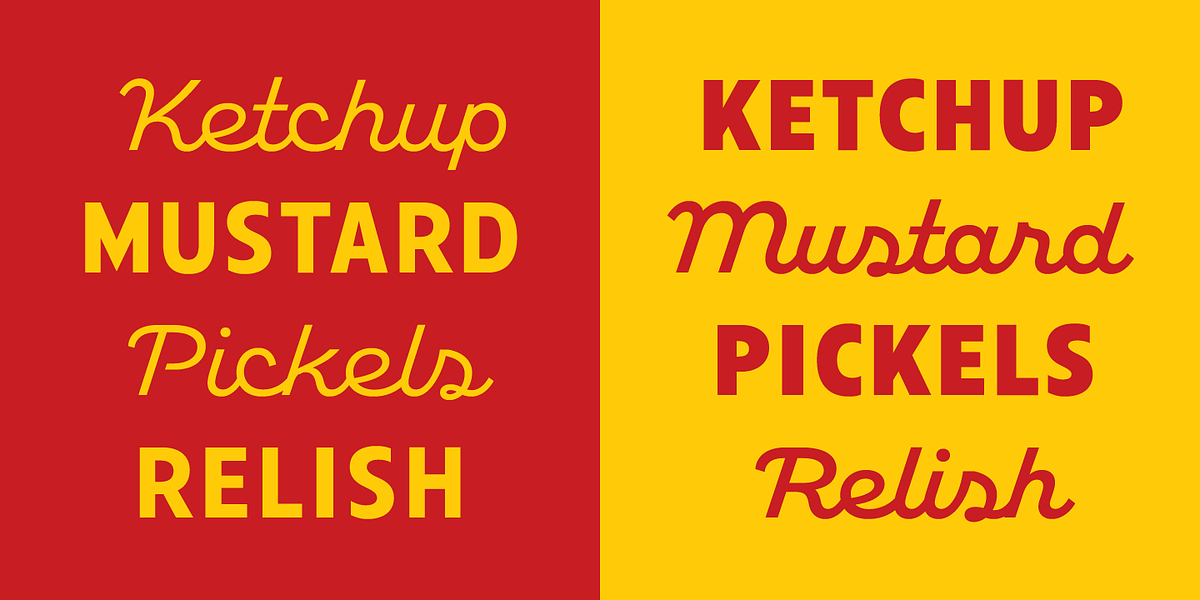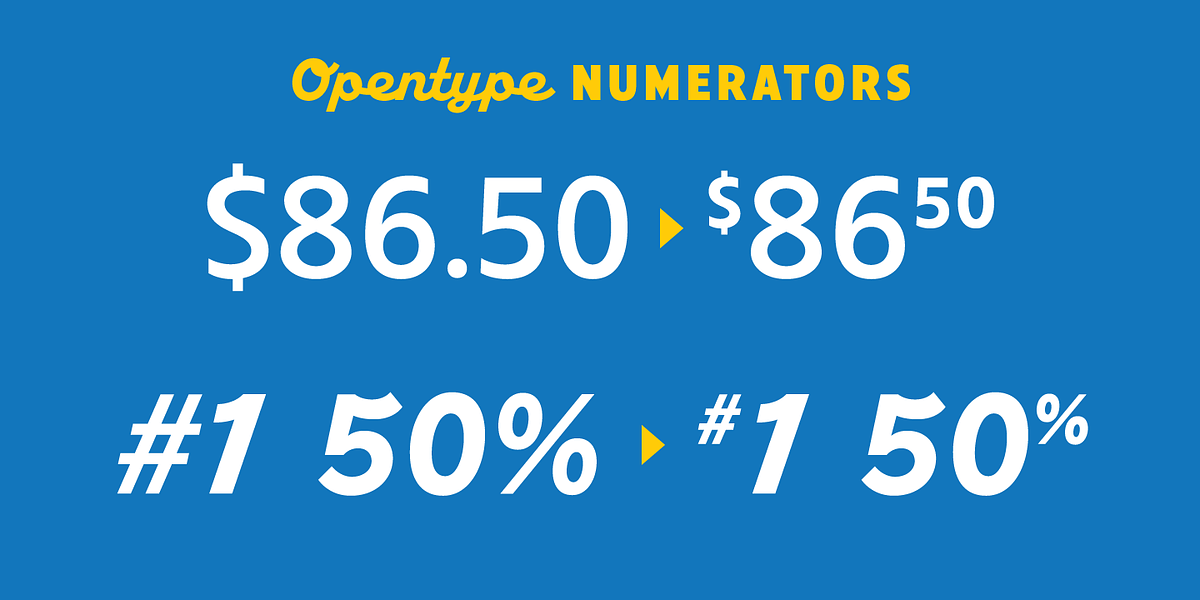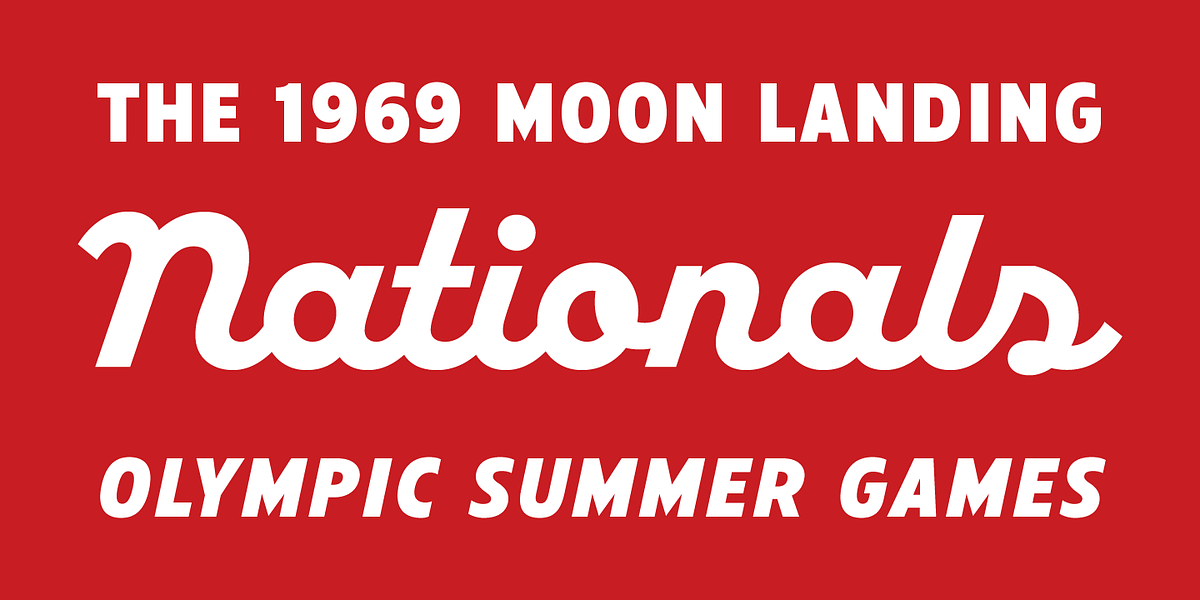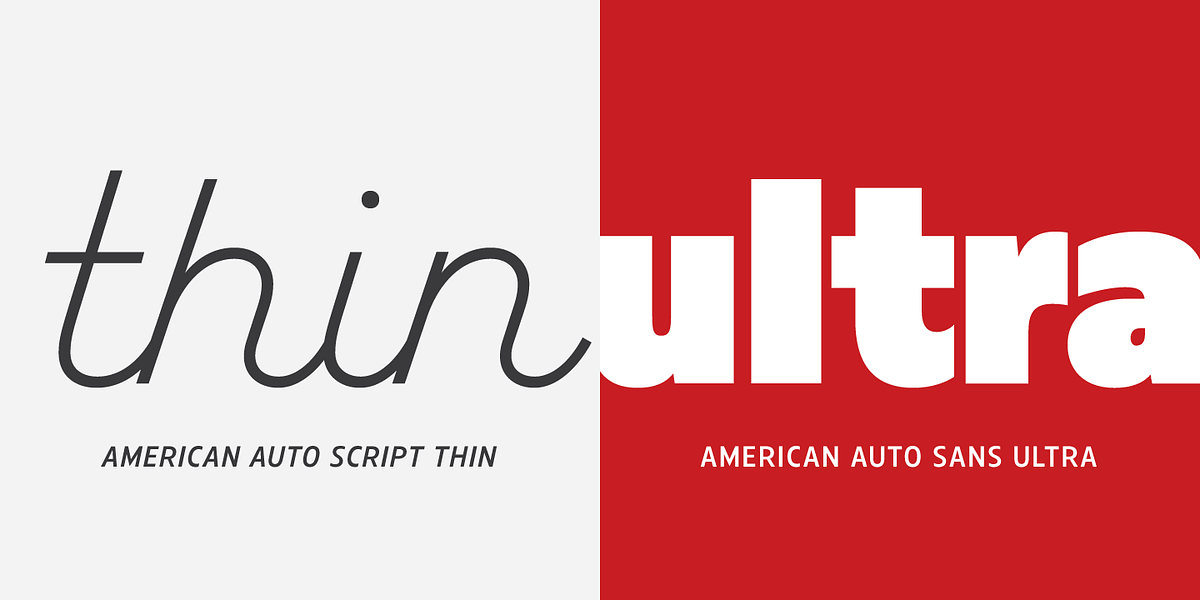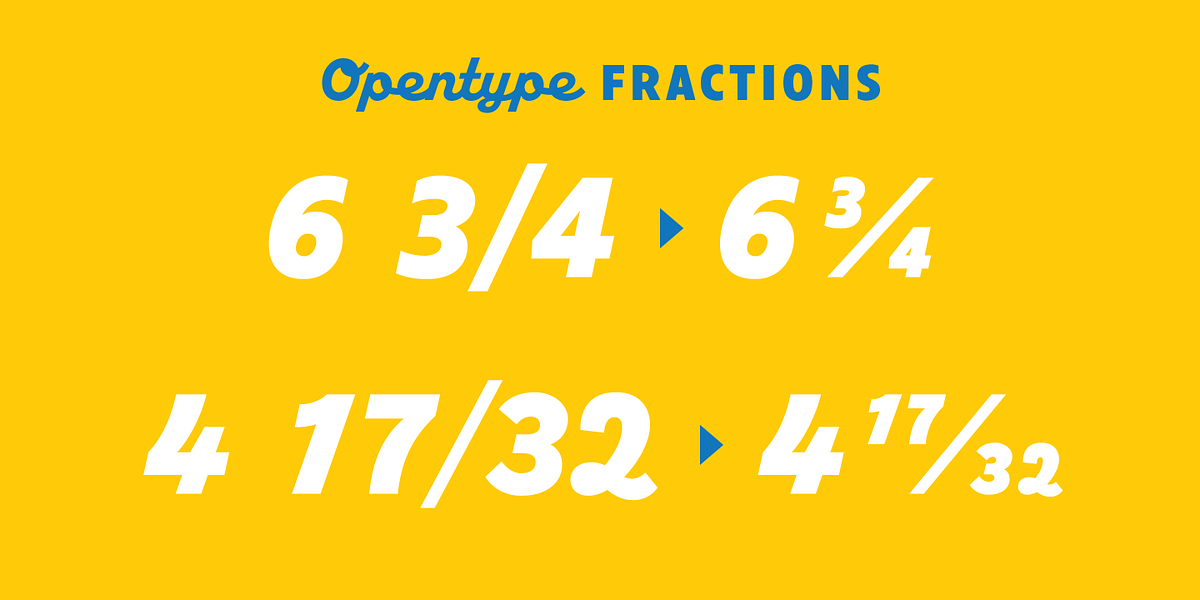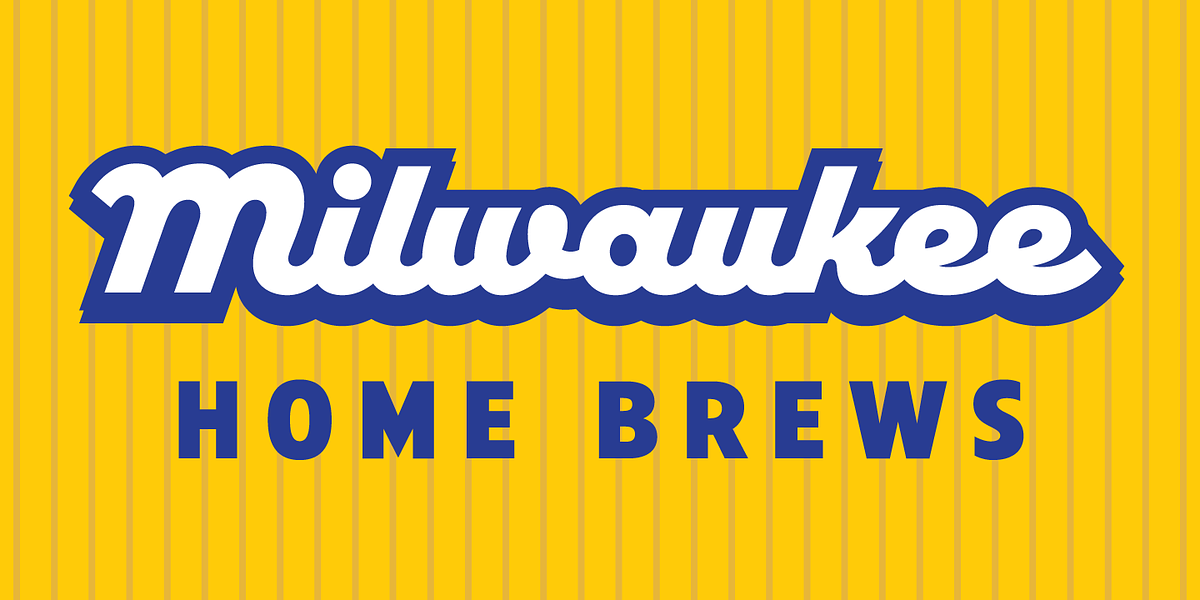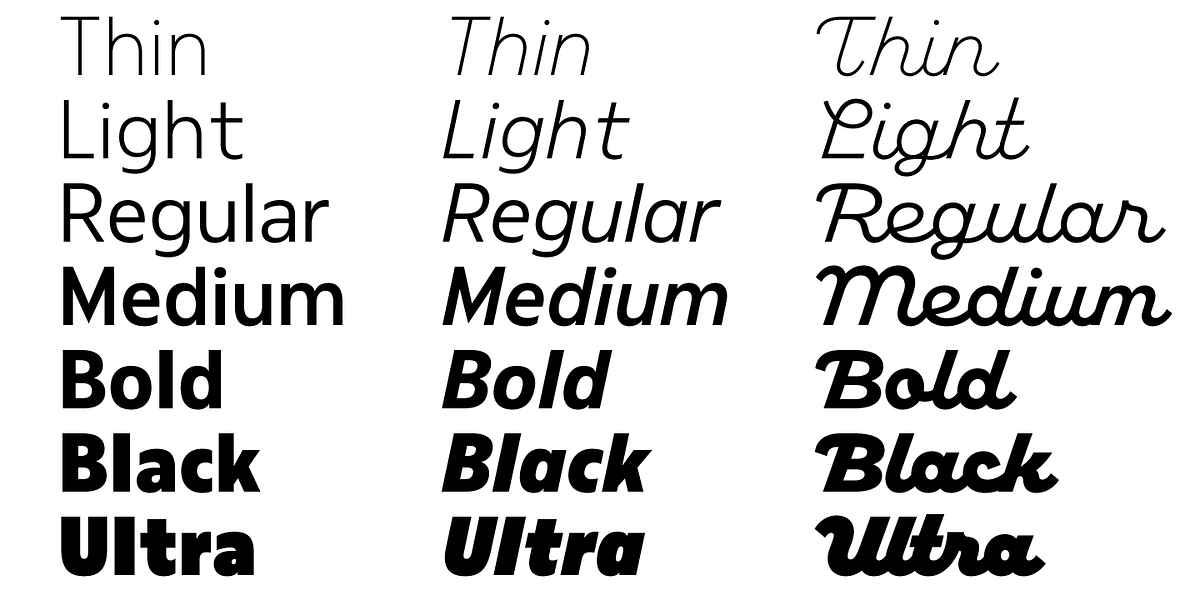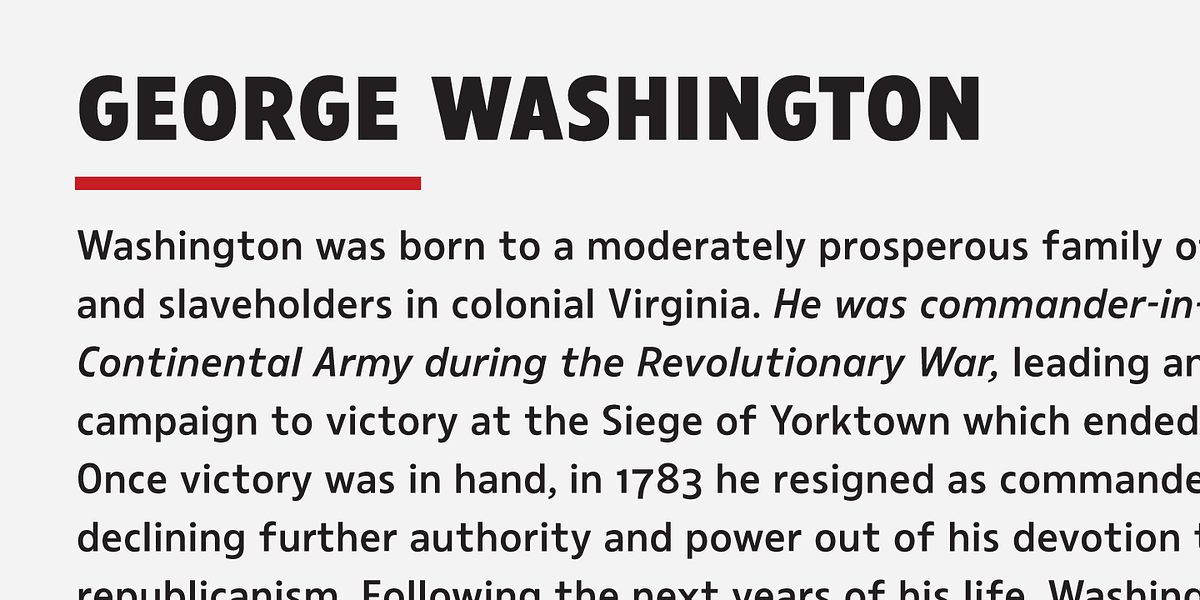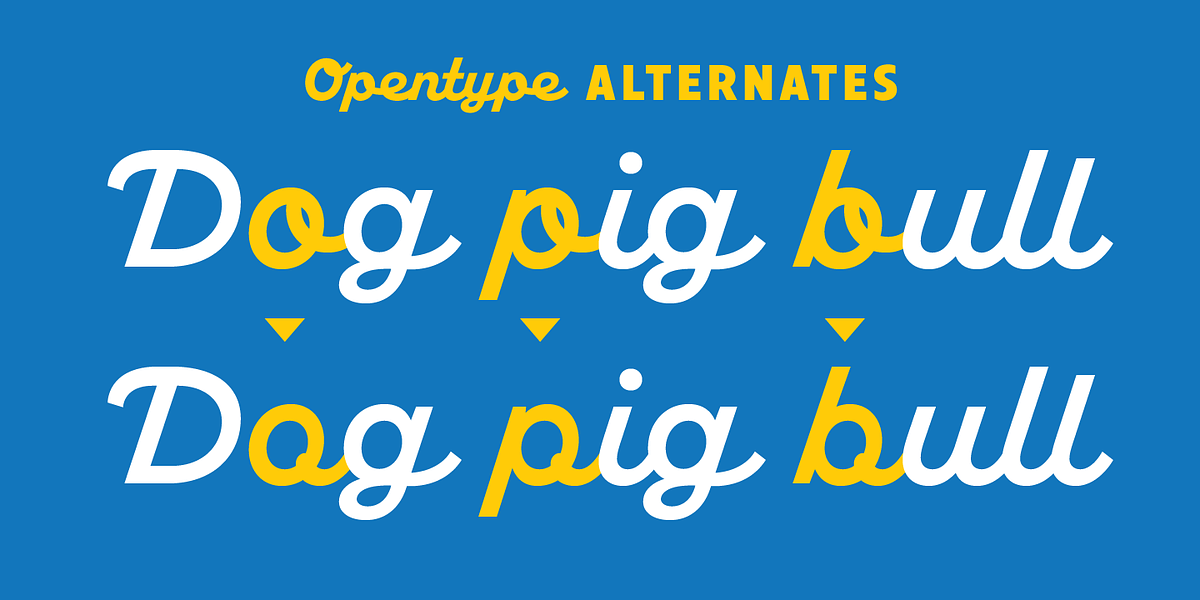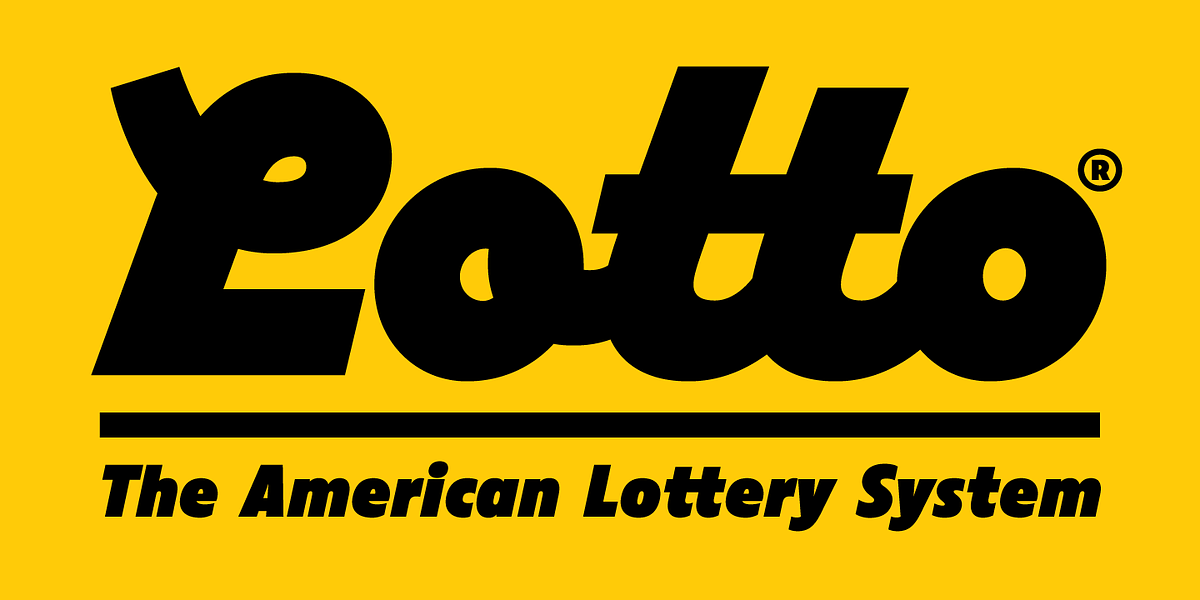
American Auto
American Auto is a font family comprising a robust sans serif and a playful script. Designed to evoke a sense of Americana, it's well-suited for a variety of applications from branding and posters to book covers and digital platforms. The typeface boasts numerous OpenType features, including alternates, contextual alternates, figures, and fractions, allowing for flexible and creative typography.